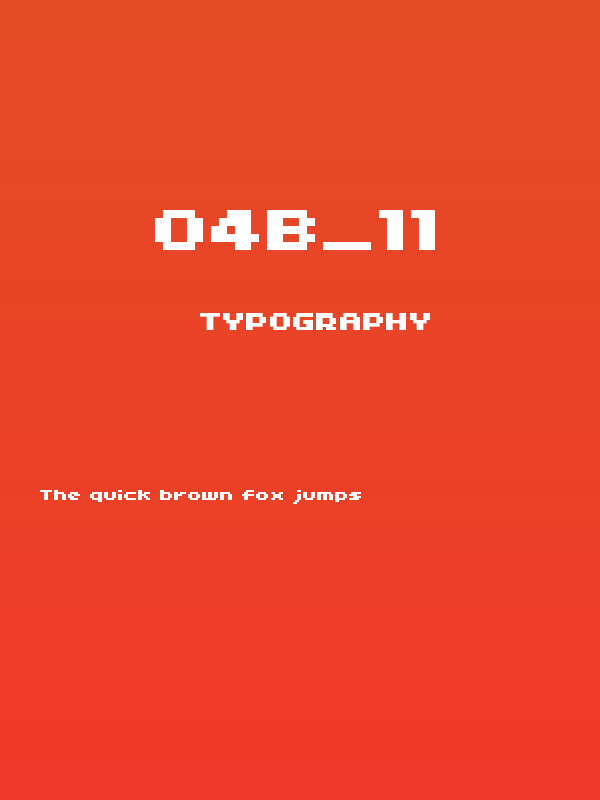
04b_11 Font
04b_11 Description
This font features a pixelated, blocky design reminiscent of early digital displays and retro video games. Each character is constructed with a grid-like precision, giving it a distinct, nostalgic feel. The uppercase and lowercase letters maintain a consistent height, contributing to a uniform appearance across text. Numbers and special characters follow the same pixelated style, ensuring a cohesive look throughout. The font's simplicity and geometric shapes make it highly legible at various sizes, though it shines best in larger formats where its unique style can be fully appreciated.
| Overall Style | Retro, Digital, Nostalgic |
| Proposed Projects | Ideal for retro video game designs, digital art projects, tech-themed posters, and any creative work requiring a nostalgic digital aesthetic. |